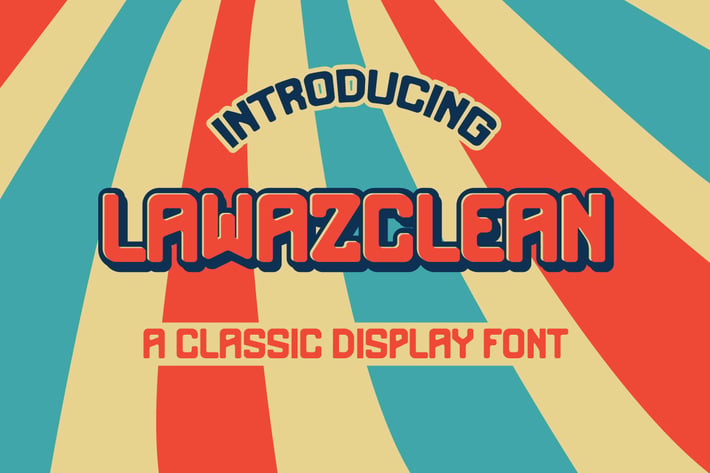
Lawazclean Vintage Retro Font Classic
LAWAZCLEAN is a hand-lettered box and smooth Sans-serif. This font is awesome for your creative project such as Logotype, esports, Branding, Packaging, Merchandise, label, and much more.
LAWAZCLEAN comes with standard character, numeral, punctuation and also alternates, standard and discretionary ligatures which let you customize your designs.